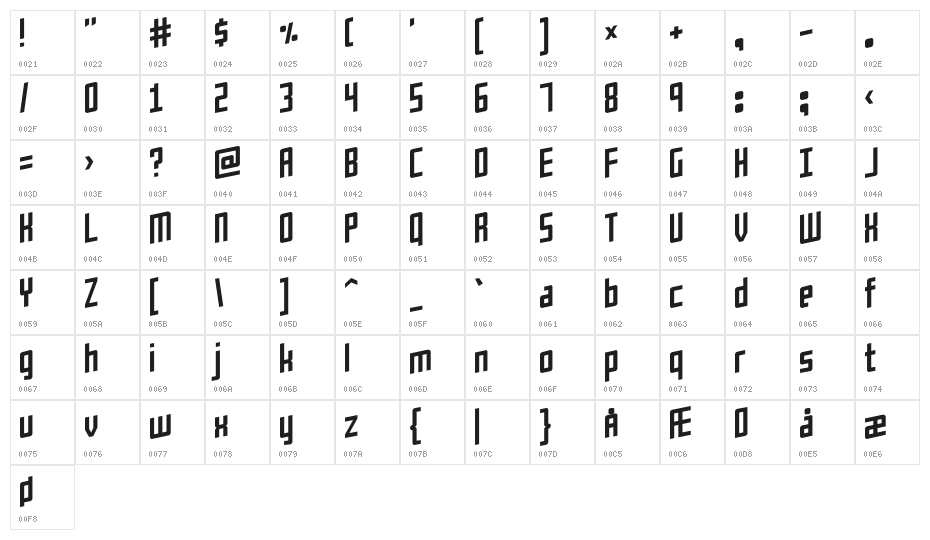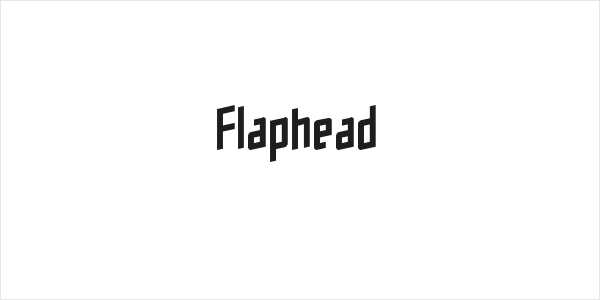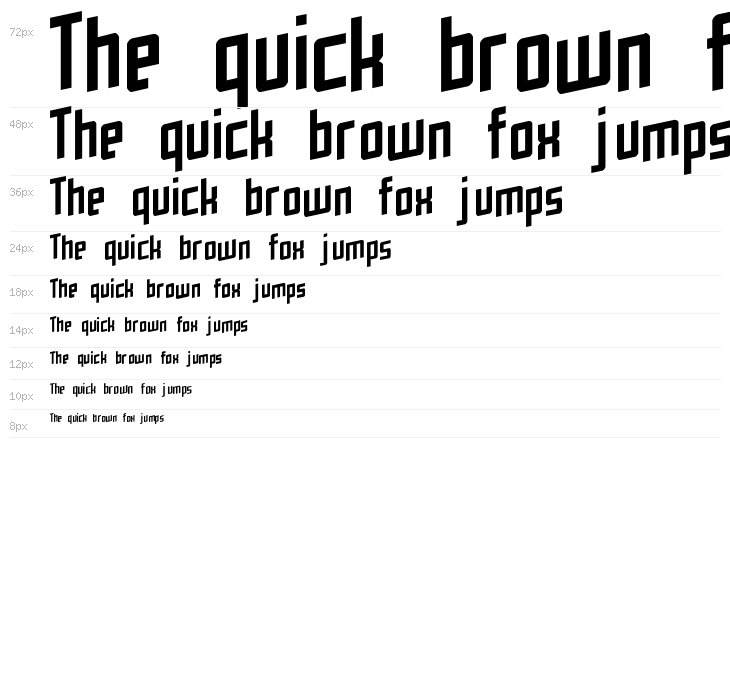
Flaphead Font
Flaphead Description
This font features a bold, geometric design with a distinct slant, giving it a dynamic and modern appearance. The characters are constructed with straight lines and sharp angles, creating a sense of movement and energy. The uppercase and lowercase letters maintain a consistent style, with the lowercase mirroring the angularity of the uppercase. Numbers and special characters are equally bold and angular, ensuring uniformity across all glyphs. The overall look is both futuristic and retro, making it versatile for various design applications.
| Proposed Projects | Ideal for branding, posters, and digital media where a modern and energetic style is desired. |